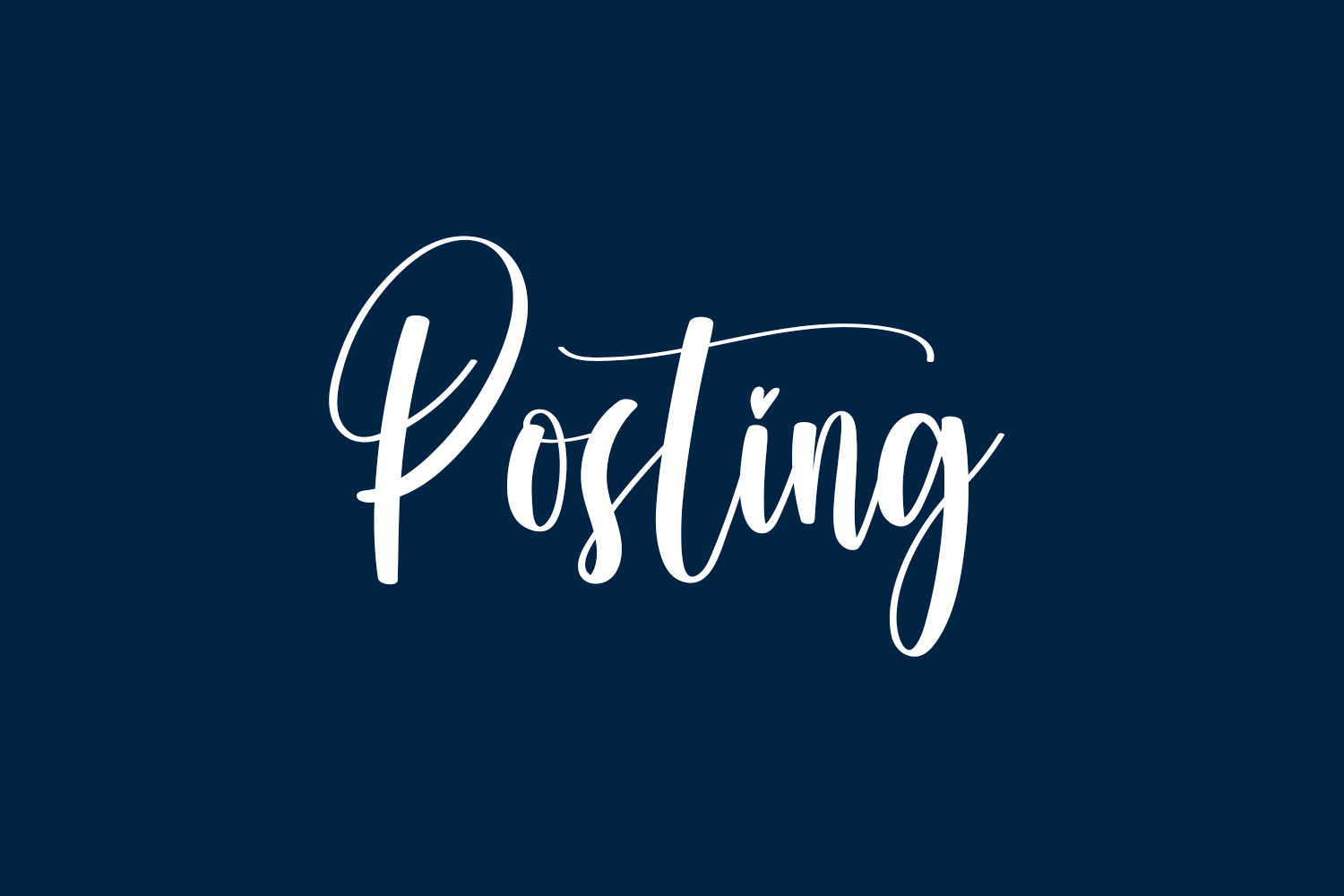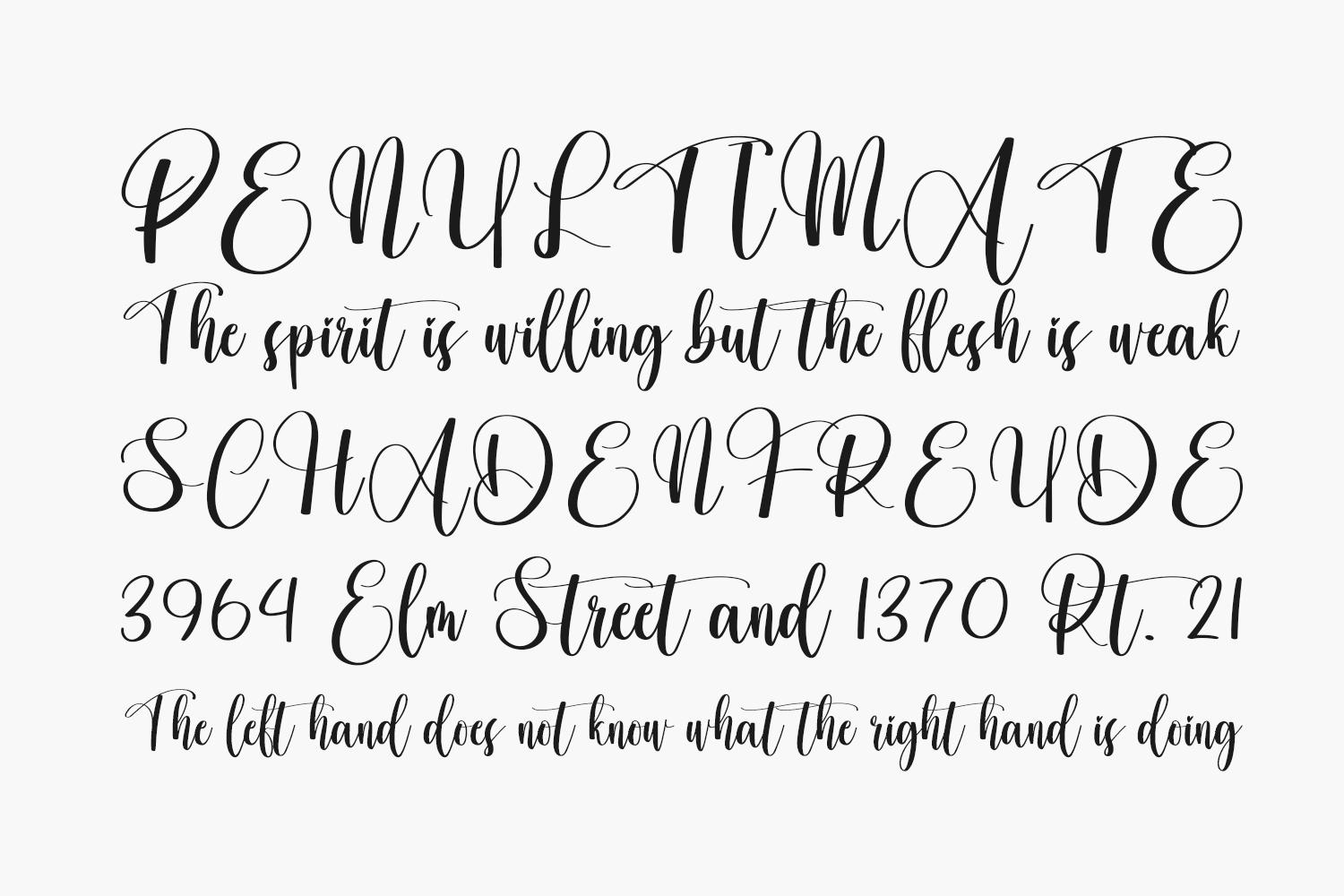
Introducing Posting Free Font, a cool, simple, playful handwritten font that injects personality into any project. With its versatility, Posting seamlessly integrates into various designs, from casual to quirky, instantly elevating them to new heights. Add a touch of whimsy to your favorite creative endeavors by Posting and watching as your ideas burst to life with charm and character. Perfect for branding, logos, social media graphics, merchandise, and more. Let Posting unleash your creativity today. Download the font for free if you need it for personal use or purchase the full version for commercial use.